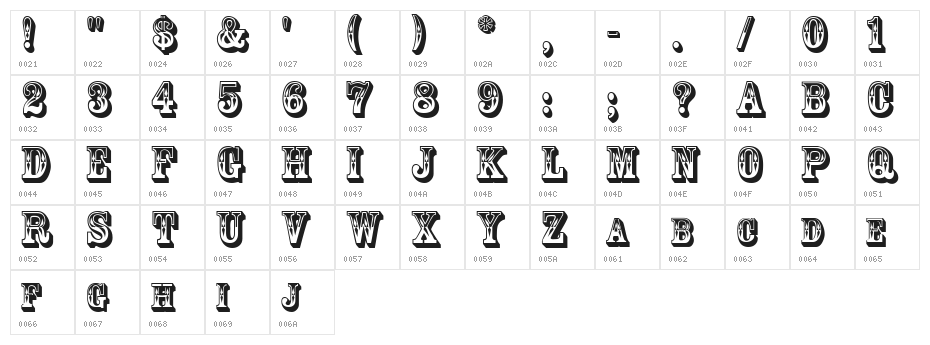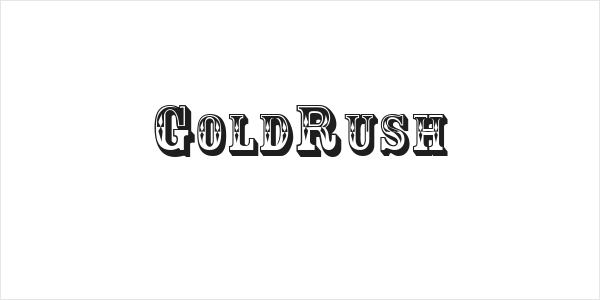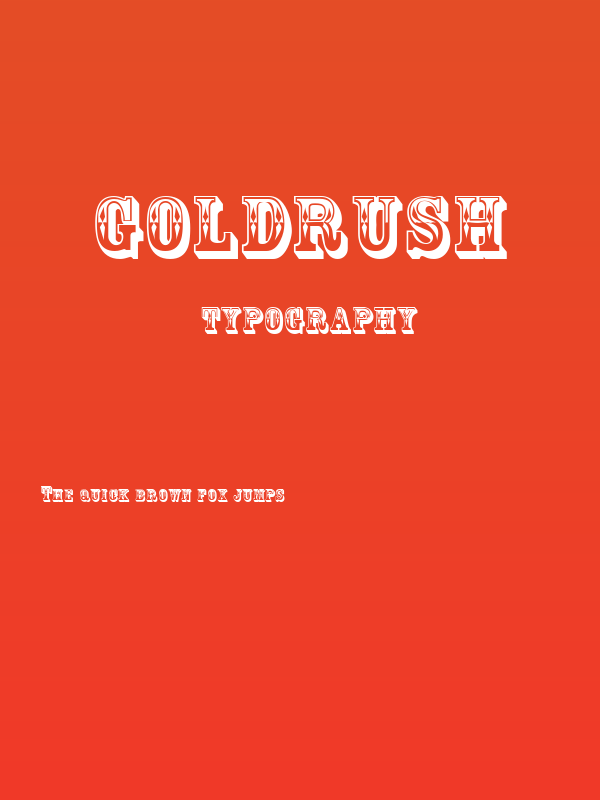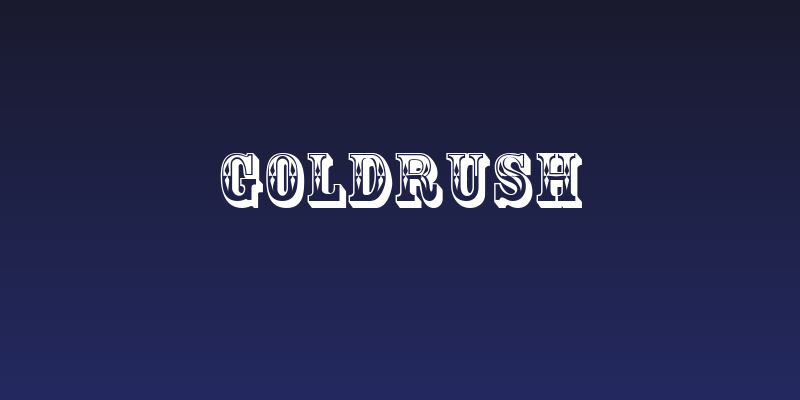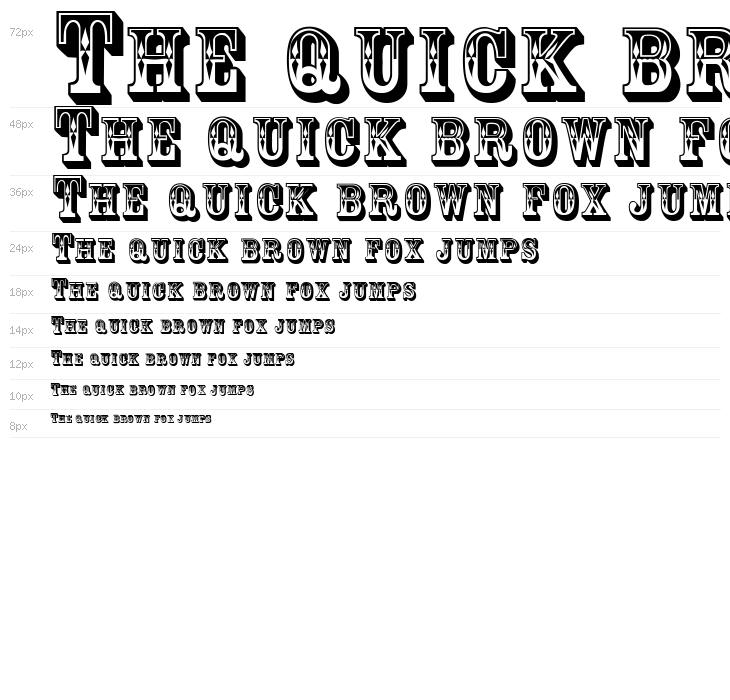
GoldRush Font
GoldRush Description
This font features a bold, decorative style with a distinct Western or vintage flair. Each character is outlined with a thick shadow, giving it a three-dimensional appearance. The letters are adorned with intricate patterns and embellishments, reminiscent of old-fashioned signage or posters from the Gold Rush era. The uppercase and lowercase letters maintain a consistent style, with the numbers and special characters equally ornate. This font's unique design makes it stand out, capturing attention with its elaborate and artistic details.
Proposed ProjectsIdeal for use in vintage-themed posters, event invitations, branding for rustic or Western-style businesses, and decorative signage.